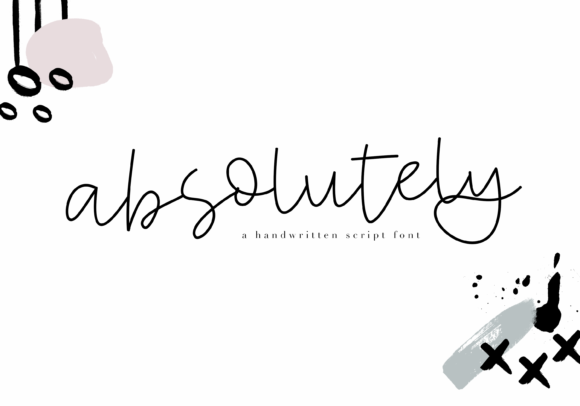
Absolutely Font: Elevate Your Design with a Striking Handwritten Twist
When it comes to choosing the right font for your design project, the options can be overwhelming. However, if you’re looking for a font that stands out from the crowd and adds a unique touch to your work, look no further than Absolutely Font. This striking handwritten font is designed to effortlessly elevate any design project, and in this article, we’ll explore what makes it so special.
The Story Behind Absolutely Font
Absolutely Font is a carefully crafted handwritten font that boasts a distinctive and eye-catching style. Its creator aimed to design a font that would not only be aesthetically pleasing but also highly versatile, suitable for a wide range of design applications. Whether you’re working on a branding project, a website, or marketing materials, Absolutely Font is the perfect choice to add a personal touch and make your work stand out.
Unique Features of Absolutely Font
- Handwritten with a Twist: Absolutely Font features a unique handwritten style with a twist that sets it apart from more traditional fonts. Its elegant and fluid lines give it a personal and approachable feel.
- Highly Legible: Despite its unique style, Absolutely Font remains highly legible, making it suitable for both headings and body text. This versatility ensures that you can use it across various design elements without compromising on readability.
- Extensive Character Set: The font comes with an extensive character set, including uppercase and lowercase letters, numbers, punctuation, and special characters. This comprehensive set ensures that you have everything you need to create cohesive and professional-looking designs.
- Multiple Weight Options: Absolutely Font is available in multiple weight options, allowing you to choose the perfect weight to match your design requirements. Whether you need a light, regular, or bold weight, this font has got you covered.
Why Choose Absolutely Font?
With so many fonts available, why should you choose Absolutely Font for your design projects? Here are a few compelling reasons:
1. Adds a Personal Touch
Absolutely Font’s unique handwritten style adds a personal touch to your designs, making them more relatable and engaging. In a world where generic and overused fonts are common, this font helps your work stand out and leave a lasting impression.
2. Versatile and Adaptable
Whether you’re working on a digital project or a print design, Absolutely Font adapts seamlessly. Its versatility makes it suitable for various design applications, from branding and advertising to web design and social media graphics.
3. Enhances Readability
While aesthetics are important, readability should never be compromised. Absolutely Font strikes the perfect balance between style and legibility, ensuring that your message is conveyed clearly and effectively.
How to Use Absolutely Font in Your Designs
Integrating Absolutely Font into your design workflow is straightforward. Here are some tips to get you started:
1. Pairing with Other Fonts
To create visual interest and hierarchy in your designs, consider pairing Absolutely Font with complementary fonts. A combination of a bold headline in Absolutely Font and a clean sans-serif font for body text can create a striking contrast.
2. Use for Headings and Titles
Absolutely Font is particularly effective for headings and titles, where its unique style can shine. Use it to draw attention to key messages or to add emphasis to important information.
3. Experiment with Colors and Textures
Don’t be afraid to experiment with different colors and textures to enhance the impact of Absolutely Font. Consider using gradients, shadows, or textured backgrounds to add depth and dimension to your text.
Absolutely Font is more than just a font – it’s a design statement. With its striking handwritten style and unique twist, it has the power to elevate any design project and make it truly memorable. Whether you’re a designer, marketer, or business owner, this versatile font is sure to become a valuable addition to your creative toolkit. So why settle for ordinary when you can make your designs absolutely extraordinary?